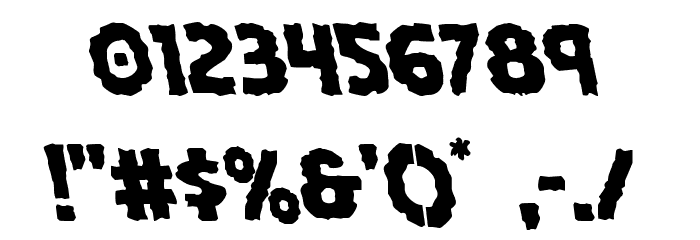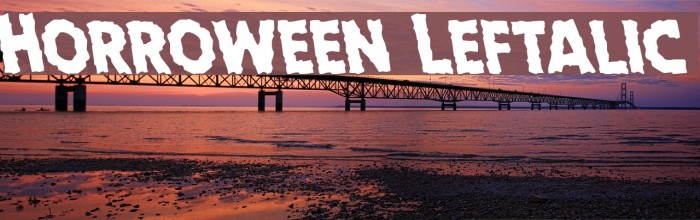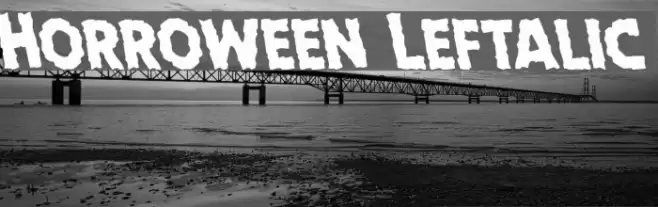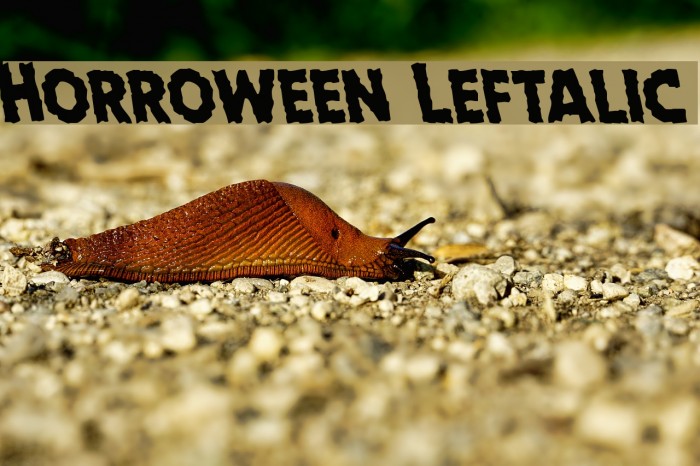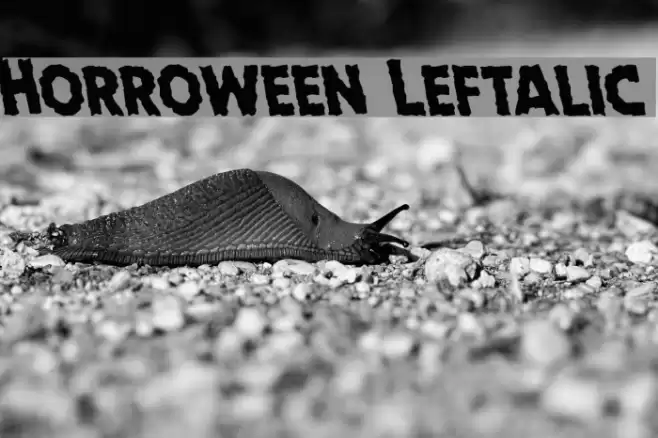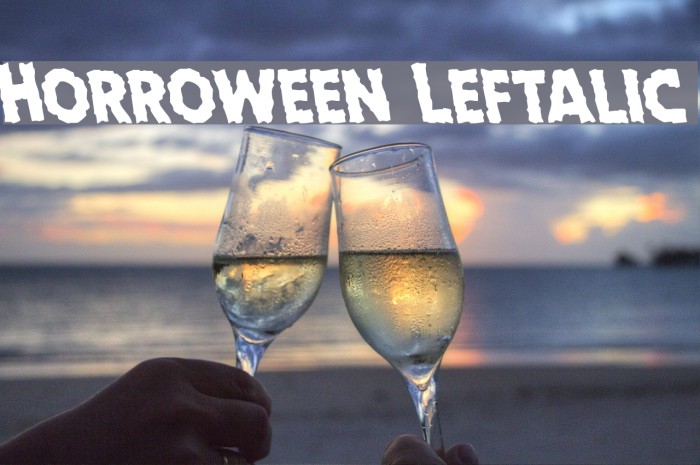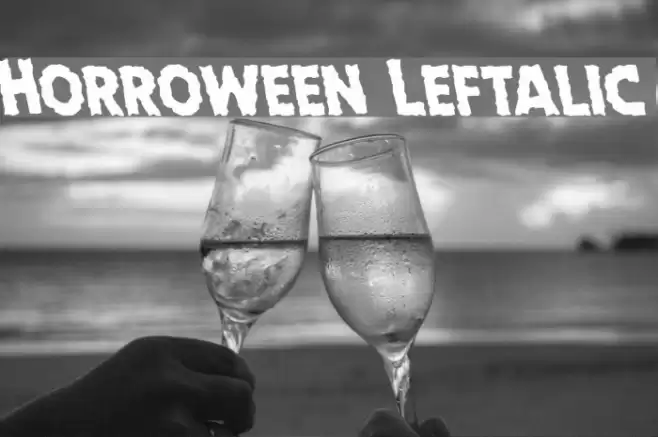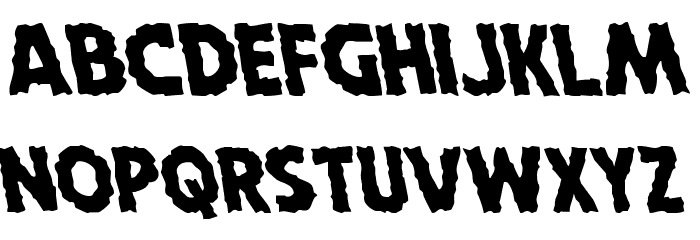
Horroween Leftalic Font
Horroween Leftalic Description
This font features a bold and jagged design, reminiscent of torn paper or rough edges, giving it a distinctly eerie and unsettling appearance. The characters are heavily stylized with irregular contours, creating a sense of chaos and unpredictability. The uppercase and lowercase letters maintain a consistent style, with exaggerated angles and uneven strokes that contribute to its dramatic effect. The numbers and special characters follow the same aesthetic, ensuring a cohesive look across all text elements. This font is perfect for creating a spooky or horror-themed atmosphere, making it ideal for Halloween events, haunted house promotions, or any project that requires a touch of the macabre.
| Proposed Projects | Perfect for Halloween event posters, haunted house flyers, horror movie titles, and spooky-themed merchandise. |